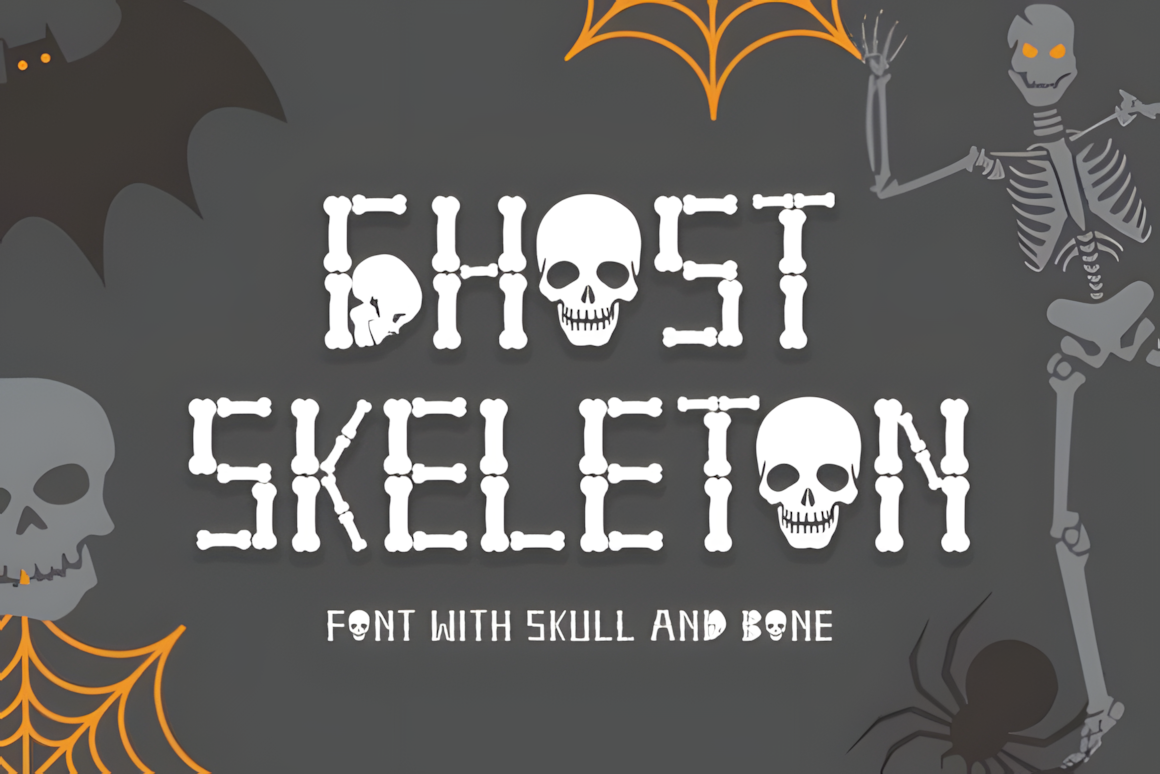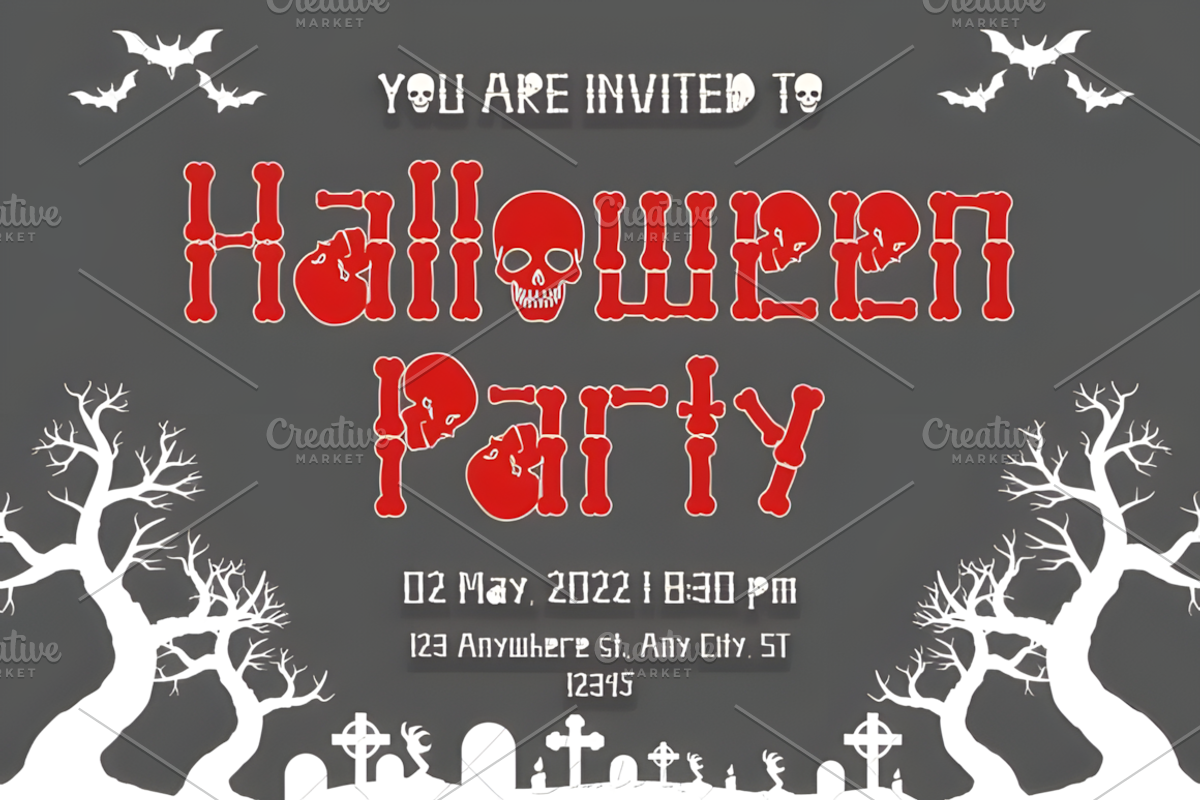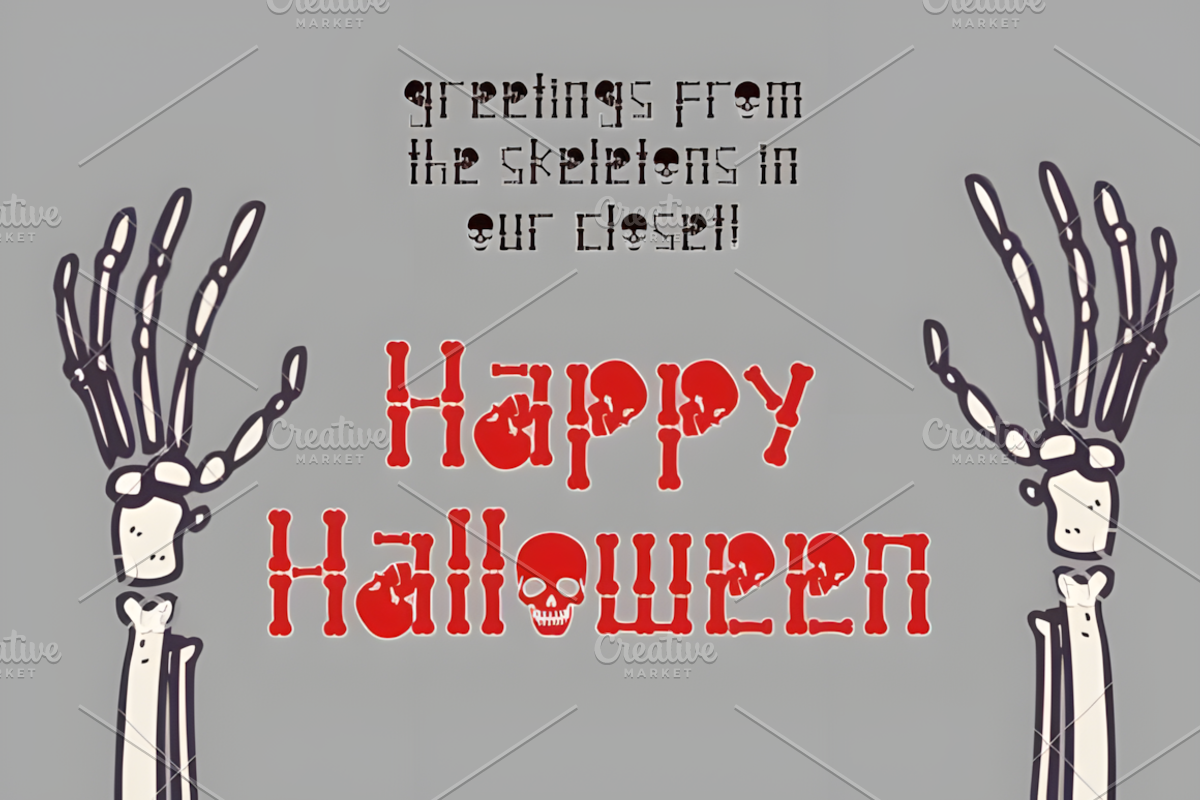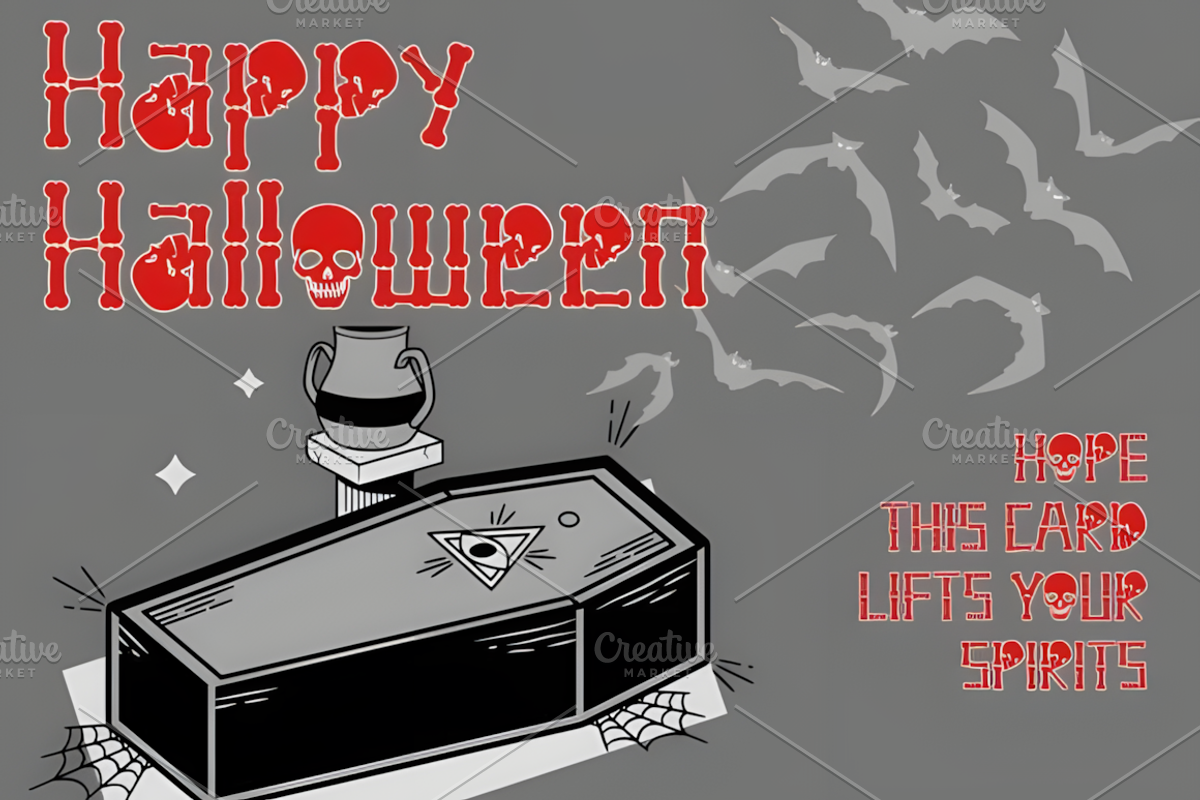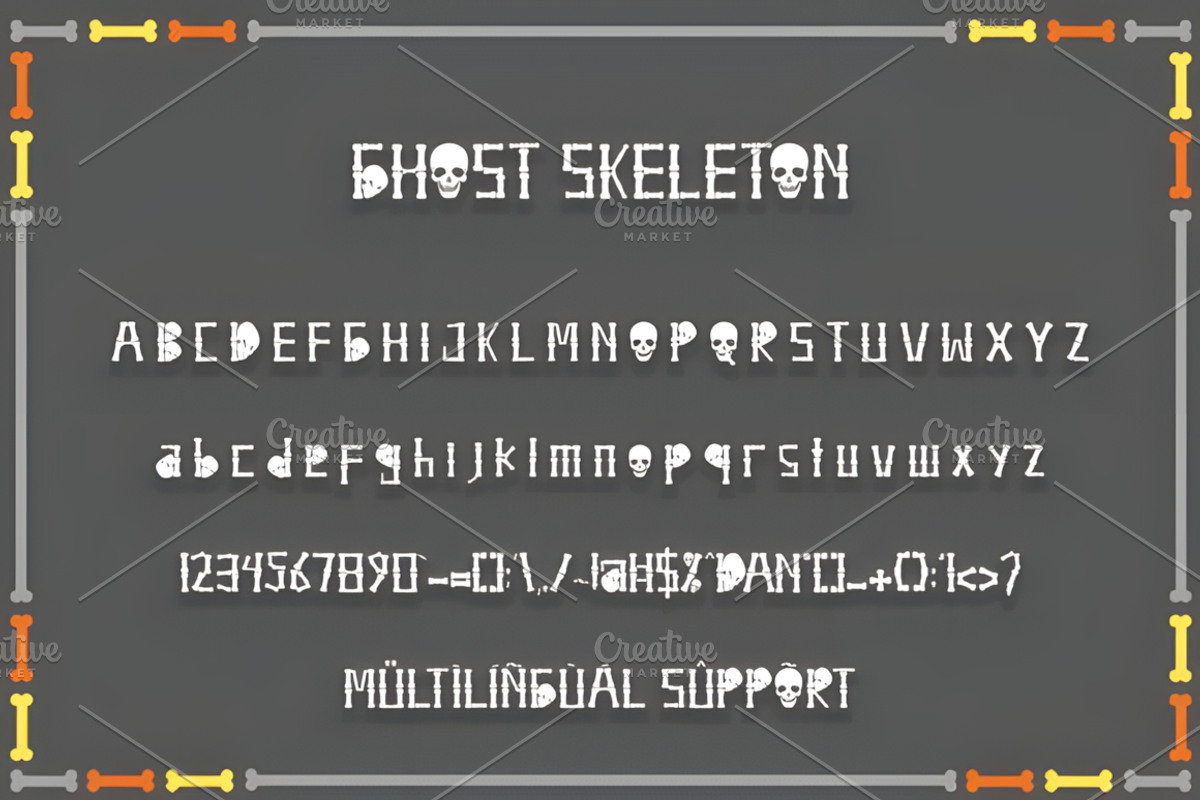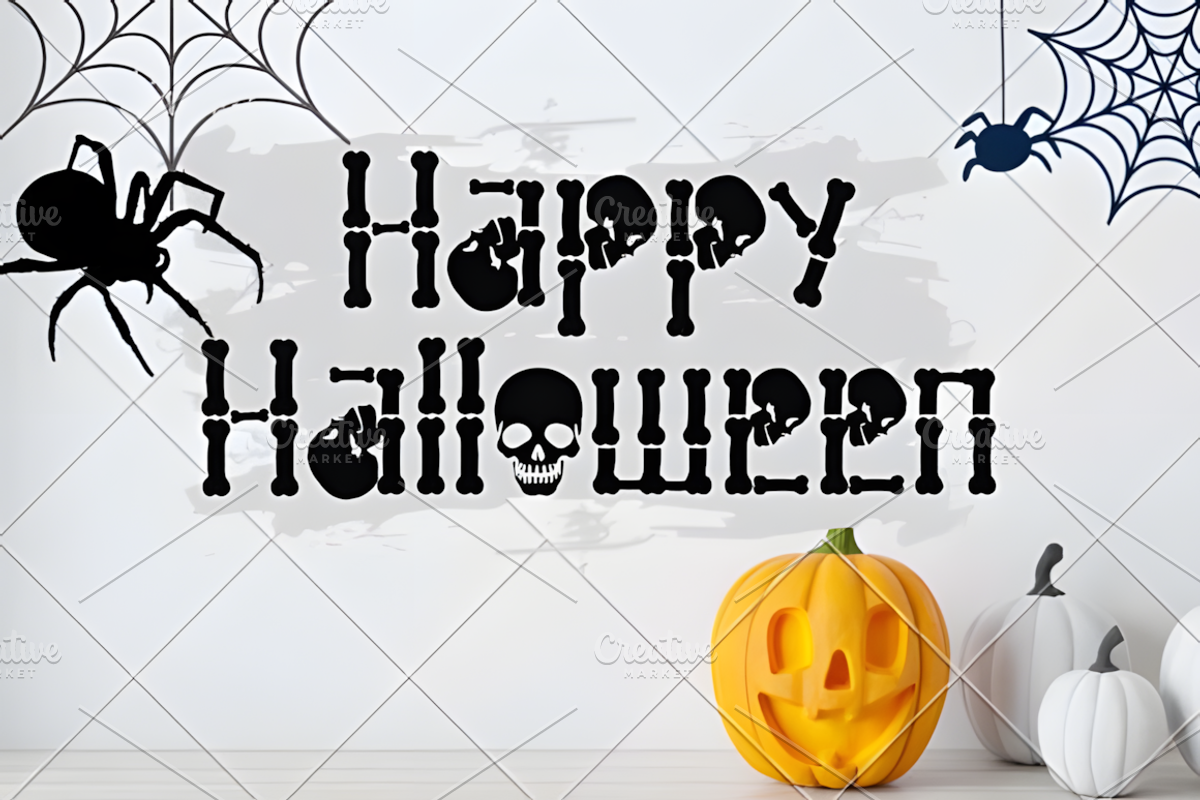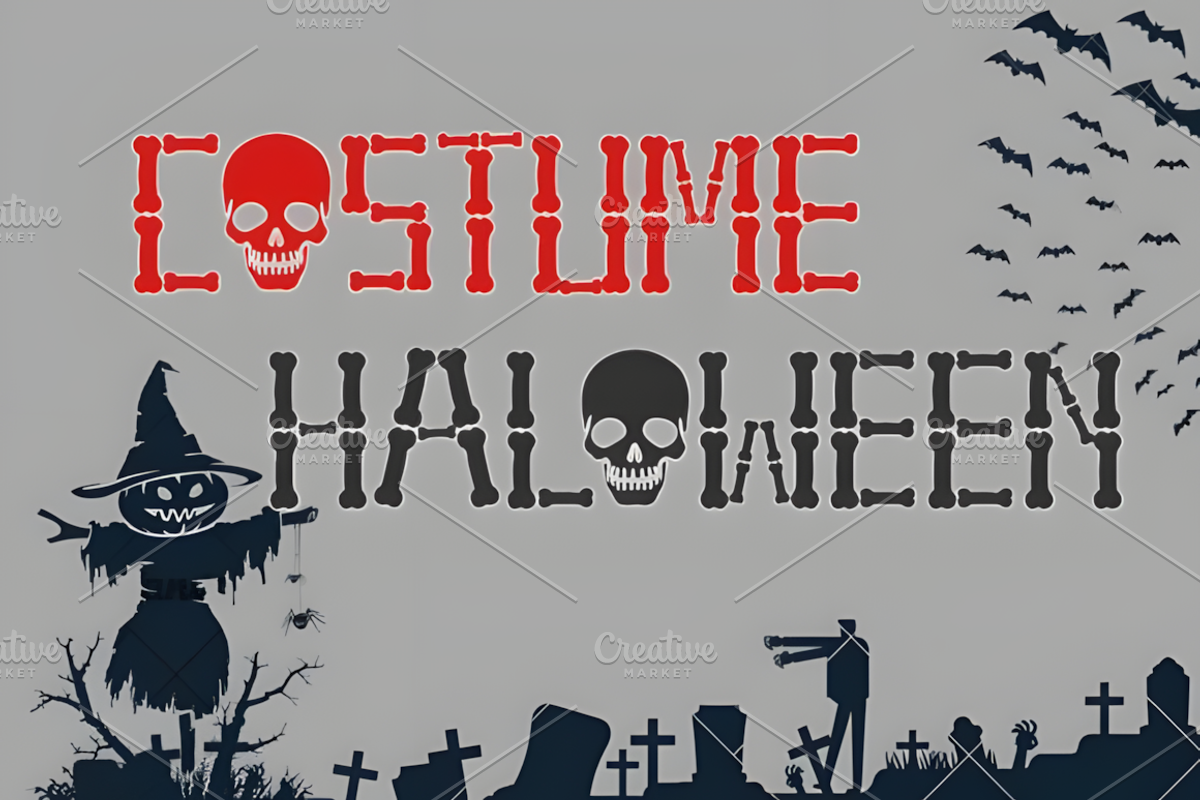
Ghost Skeleton Font
Halloween fonts such as Ghost Skeleton are great for making Halloween parties fun. It’s also the perfect addition to your next designs, making it easy to create something you can use to make people smile at night.